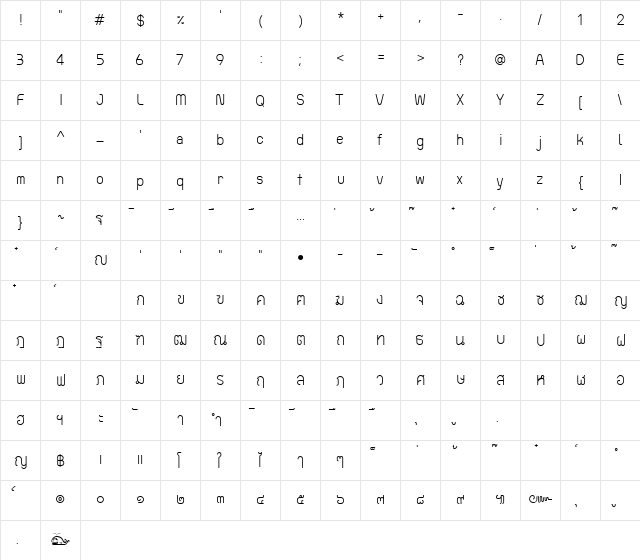
TP Tankhun Regular
| Foundry | Tippawan Sumnavong |
| Designer | Tippawan Sumnavong |
Design Context for TP Tankhun Typeface
TP Tankhun takes a measured approach to typography — its balanced proportions and neutral character make it a reliable workhorse for both digital and print work.